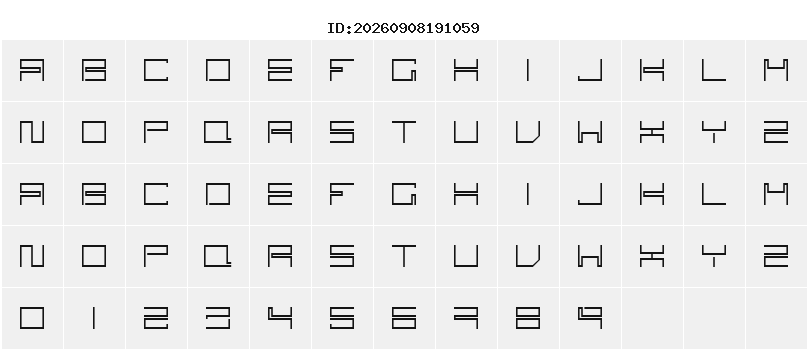
Void Preview
• Font Name: Void
• Font ID: Void
• Full Font Name: Void
• PostScript Name: Void
• Character Count: 63
About Void.ttf
Void.ttf is a modern, elegant sans-serif font designed for ultimate readability and visual harmony. Perfect for branding, headlines, web design, and print materials.